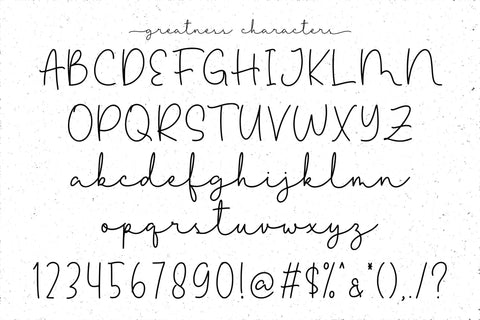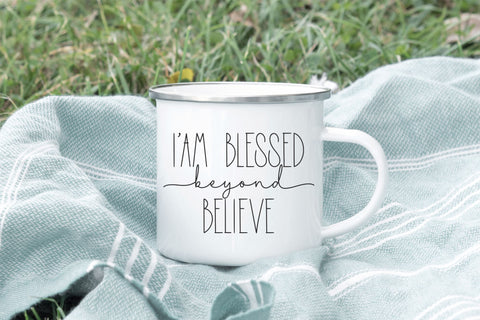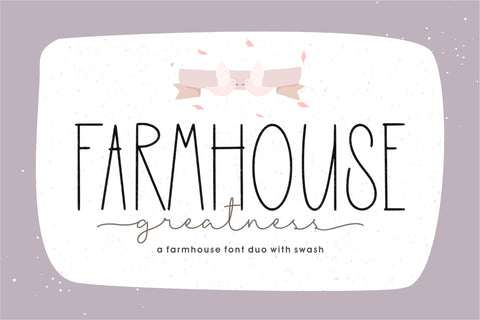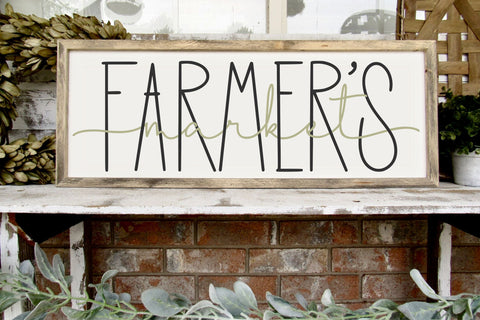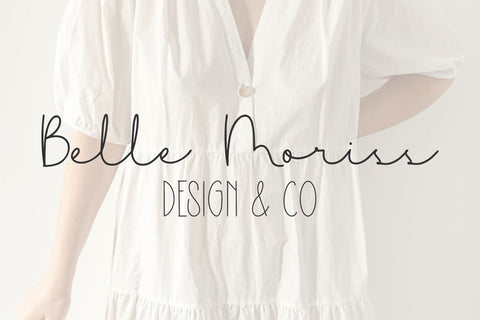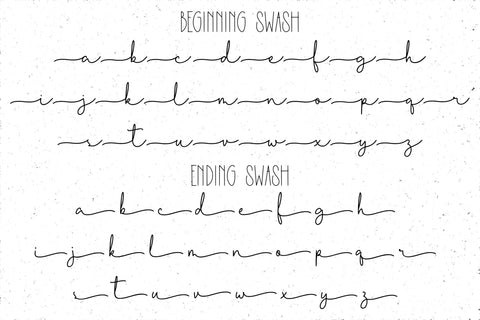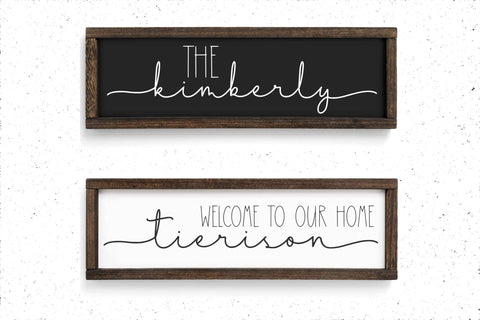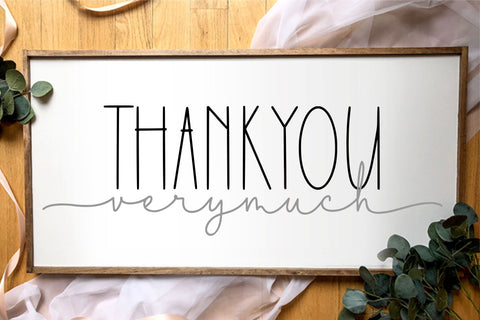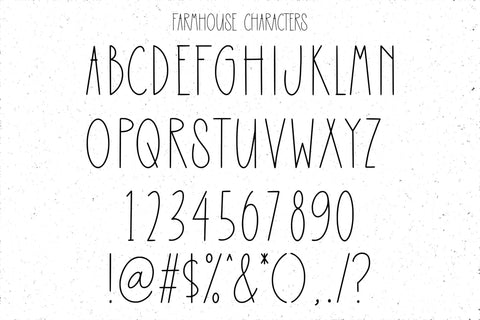
Farmhouse Greatness
Proudly Present, Farmhouse Greatness
Farmhouse Greatness is a Farmhouse Font Duo with Swash
Farmhouse Greatness is perfect for product packaging, branding project, megazine, social media, wedding, or just used to express words above the background.